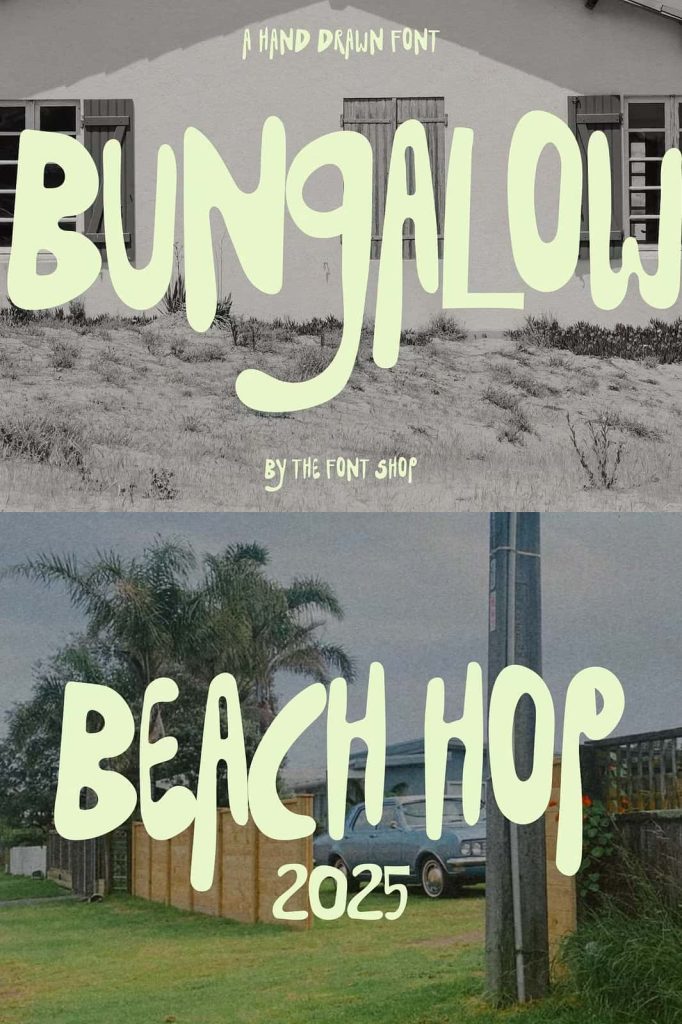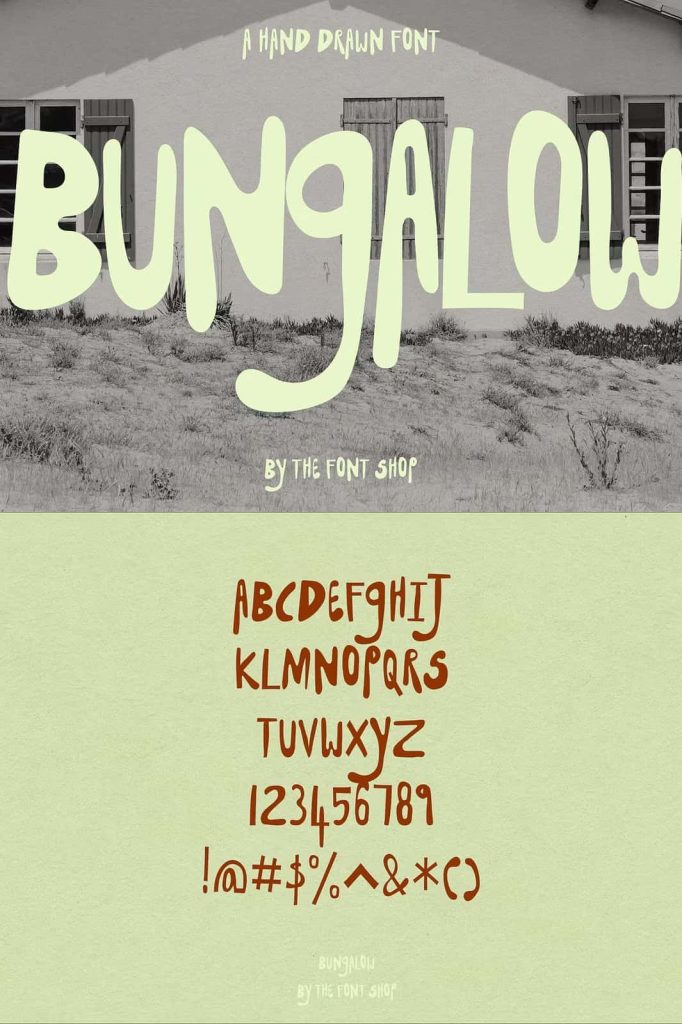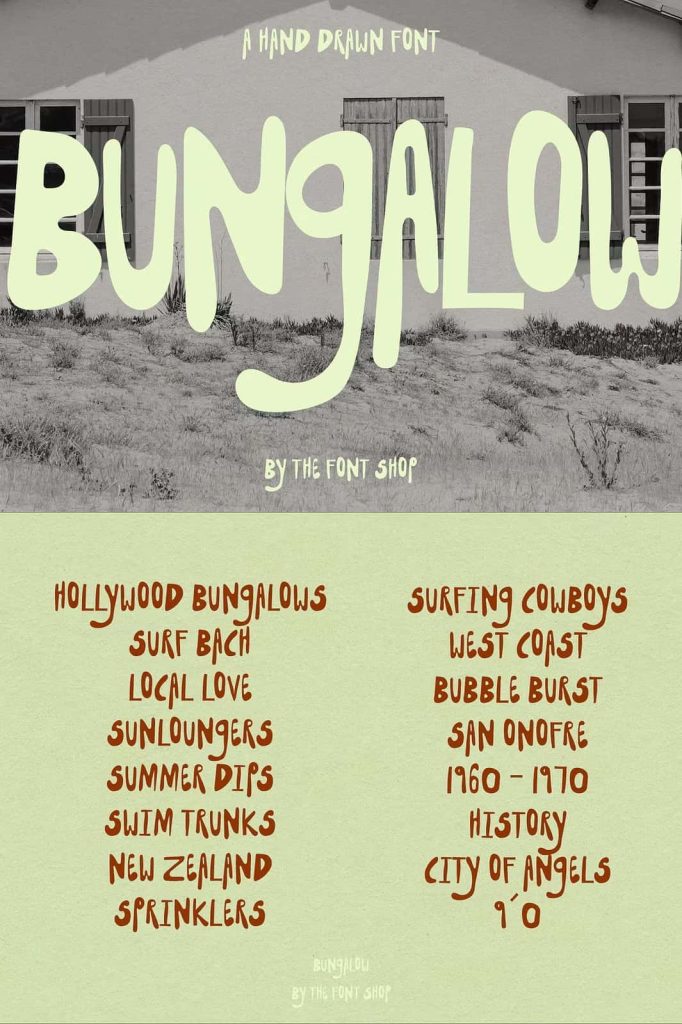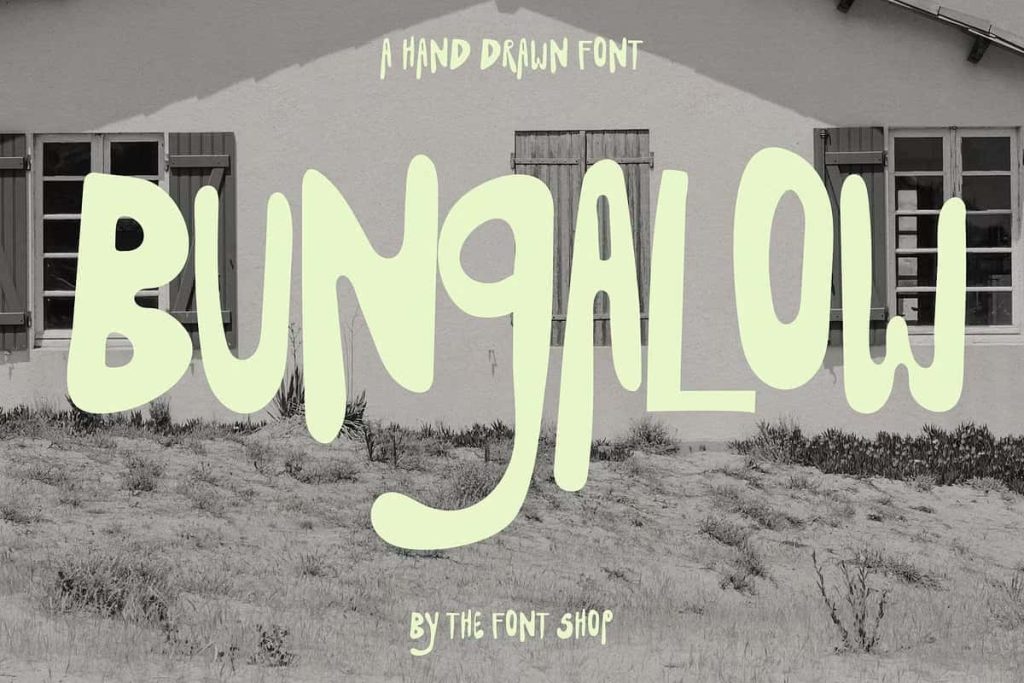
Bungalow: A Hand-Drawn Surf-Inspired Display Font with Coastal Soul
Bungalow captures the spirit of the ocean and transforms it into a bold, expressive display font. This hand-drawn typeface brings together the relaxed energy of surf culture with the warmth of coastal living. Designers who want to create visuals that feel free, natural, and full of personality will find Bungalow a powerful and inspiring choice.
Rooted in the coastal charm of Aotearoa and influenced by the sun-faded aesthetic of 1970s California surf culture, Bungalow delivers a distinctive visual voice. It reflects a lifestyle shaped by waves, sand, and sunlight, turning these elements into fluid letterforms that feel alive and dynamic.
Inspired by Coastal Life and Surf Culture
Bungalow draws its identity from the rhythm of the ocean and the laid-back atmosphere of beach communities. It channels the essence of Whangamatā, one of New Zealand’s most iconic surf destinations, where time moves slower and creativity flows freely. This influence shapes every curve and stroke in the typeface.
The font also pays tribute to the carefree spirit of 1970s California surf culture. During that era, design embraced imperfection, spontaneity, and bold self-expression. Bungalow carries that same attitude forward, allowing designers to create work that feels authentic and unrestrained.
Key Features of Bungalow Font
Hand-Drawn Letterforms with Natural Flow
Bungalow features hand-drawn characters that move with a smooth and organic rhythm. Each letter feels like it has been shaped by the motion of waves, creating a sense of continuity and movement. This natural flow makes the font visually engaging and highly expressive.
Sun-Faded and Relaxed Aesthetic
The typeface embraces a slightly worn and imperfect look, reminiscent of sun-bleached signage and vintage surf graphics. These subtle imperfections add depth and authenticity, giving the font a relaxed and approachable personality.
Bold and Expressive Display Style
Bungalow is designed to stand out. Its bold shapes and unique character make it ideal for large-scale typography where visual impact matters. Designers can use it to create strong focal points that immediately capture attention.
Perfect Use Cases for Bungalow
Bungalow thrives in creative projects that require personality and energy. Its distinctive style makes it especially effective in:
- Surf and lifestyle branding
- Beach-themed posters and event promotions
- Apparel design and merchandise graphics
- Packaging for artisanal or coastal-inspired products
- Social media visuals with a relaxed, creative tone
Because of its expressive nature, Bungalow works best as a display font. Designers should use it for headlines, titles, and short text elements while pairing it with simpler fonts for body copy.
Bringing Warmth and Personality to Design
Bungalow does more than display text—it creates an atmosphere. Its flowing shapes and imperfect details evoke warmth, freedom, and creativity. These qualities help designers connect with audiences on an emotional level, especially in projects that celebrate lifestyle, travel, and self-expression.
The font encourages experimentation. Designers can explore bold compositions, layered textures, and vibrant color palettes to enhance its impact. This flexibility allows Bungalow to adapt to both modern and retro-inspired designs.
Why Choose Bungalow for Your Projects
Bungalow offers a unique combination of artistic expression and functional design. It allows designers to step away from rigid typography and embrace a more fluid, organic approach. Its coastal inspiration and surf culture influence give it a distinctive identity that stands out in any visual environment.
By choosing Bungalow, designers gain access to a font that communicates more than words. It tells a story of movement, sunlight, and creative freedom. This makes it an excellent choice for brands and projects that want to feel authentic and memorable.
Conclusion
Bungalow is a hand-drawn display font that captures the essence of coastal living and surf culture. With its organic flow, sun-faded aesthetic, and bold personality, it transforms typography into a vibrant visual experience.
Designers who use Bungalow can create work that feels alive, expressive, and deeply connected to the spirit of the sea. It stands as a celebration of creativity, freedom, and the timeless appeal of life by the ocean.